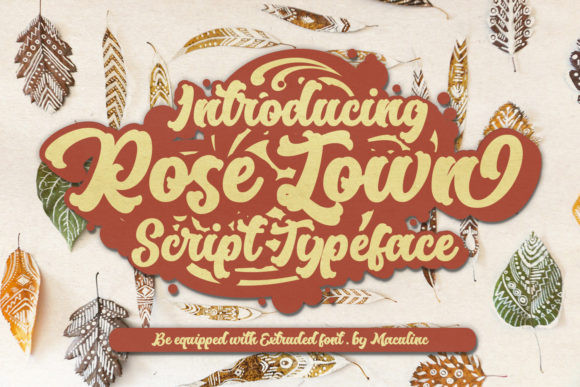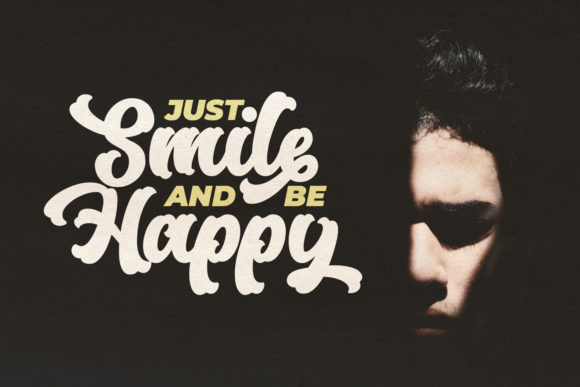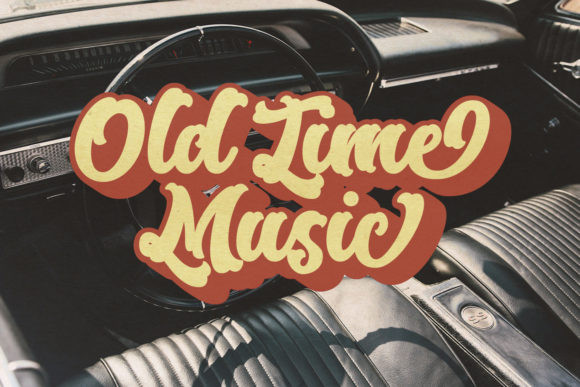
Rose Town Font
Rose Town is a thick lettered, bold and retro handwritten font. This font reads as strong, confident, and dynamic and can add tons of nostalgic character to your designs.